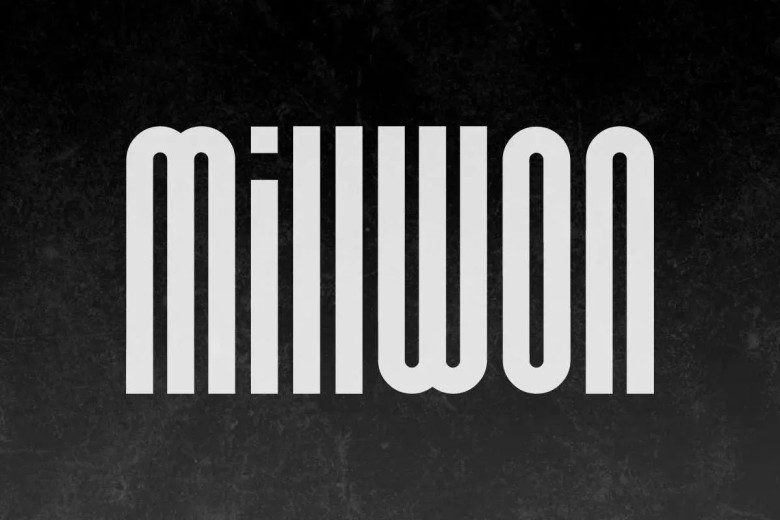
Millwon Font
Millwon Font is an elegant yet dynamic sans serif font featuring distinctively curved edges on each character. Enhance the highest-quality designs such as billboard, logo for brand catalog, business card invitation label magazines poster mockup packaging design mock up screen print quotes screen print signage stationary stickers web site title etc.
Millwon Font is an outstanding complete set of ALL CAPS fonts featuring Uppercase and Lowercase letters, numbers, punctuation marks, symbols, and numbers in various sizes for Uppercase and Lowercase letters, number punctuation marks, symbol marks, and numbers.
Millwon Sans Serif Font